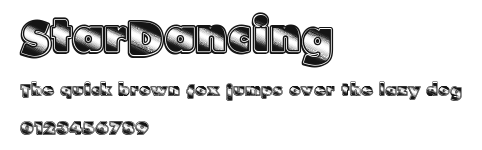
• Font Name: StarDancing
• Full Font Name: StarDancing
• Version: Version 1.00 September 4, 2014, initial release
• Designer: Xerographer Fonts Max Infeld
• Manufacturer: Xerographer Fonts
• Description: Made at Xerographer Studios in Portland,OR
About StarDancing.ttf
StarDancing.ttf is a modern, elegant sans-serif font designed for ultimate readability and visual harmony. Perfect for branding, headlines, web design, and print materials.